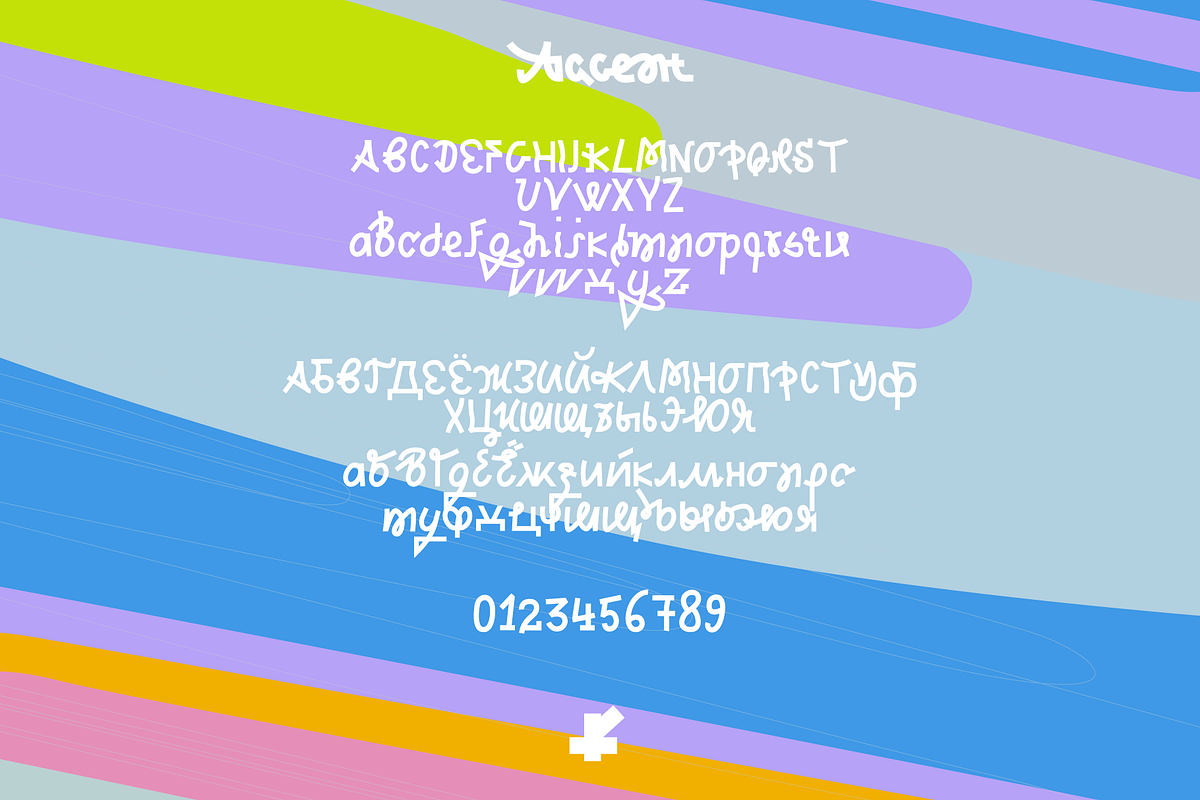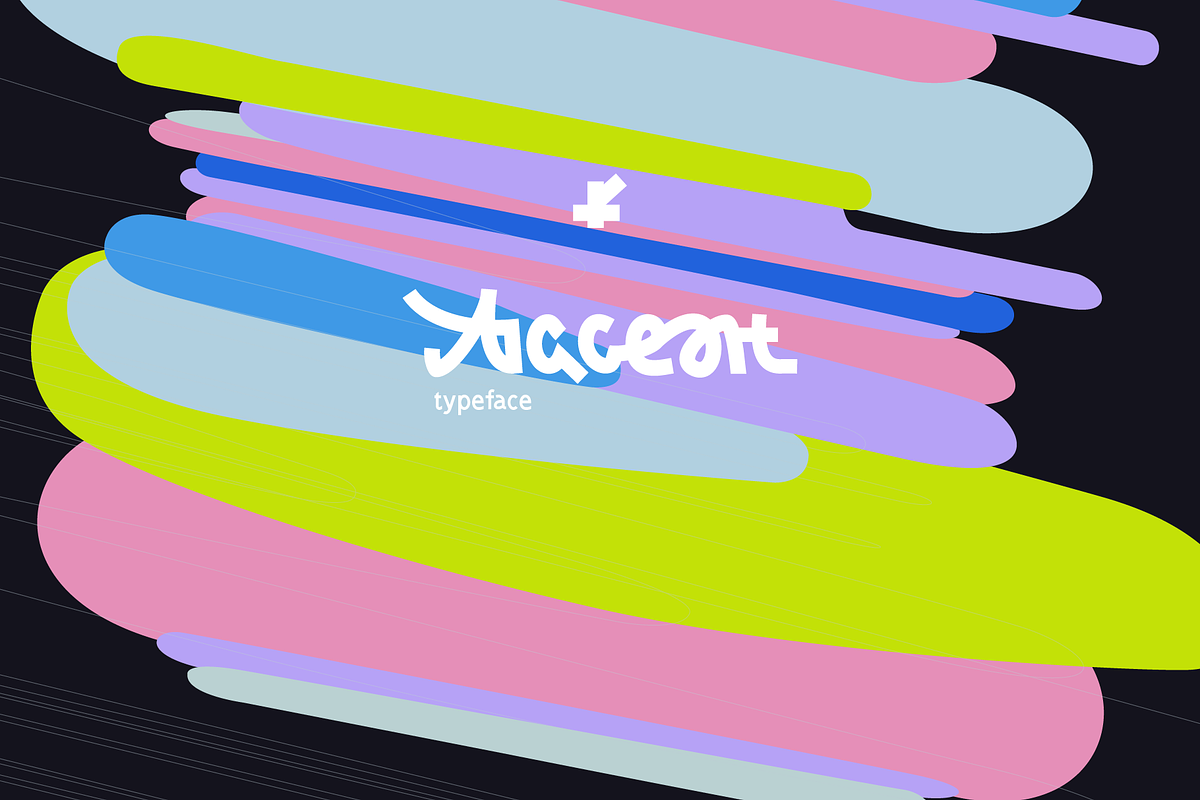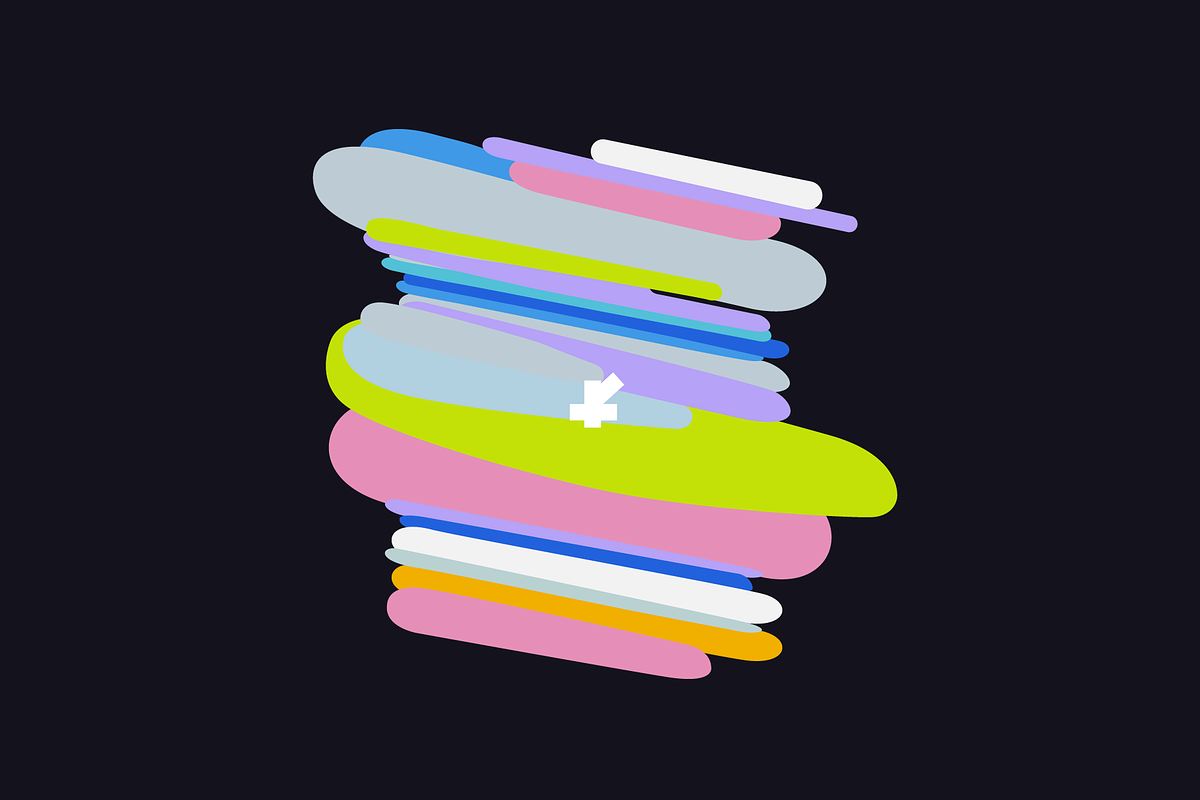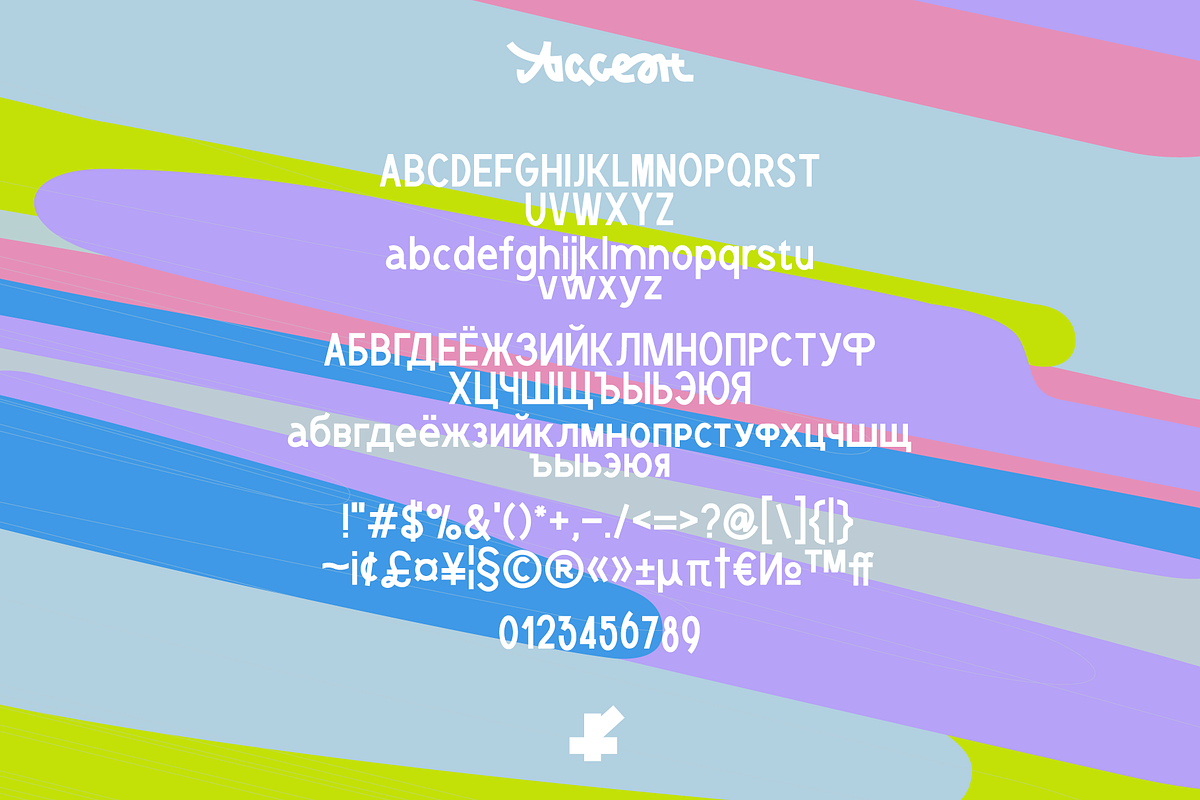
Accent Typeface
A font that has two sides, this is the concept that shaped its creation. I wanted it to make it both rigorous and unusual at the same time. It consists of two styles regular and decorative, Is created in the OpenType® format It can be purchased for 5$ at the Creative Market. Thank you for watching!
- Accent Typeface Regular
- Accent Typeface Decorative